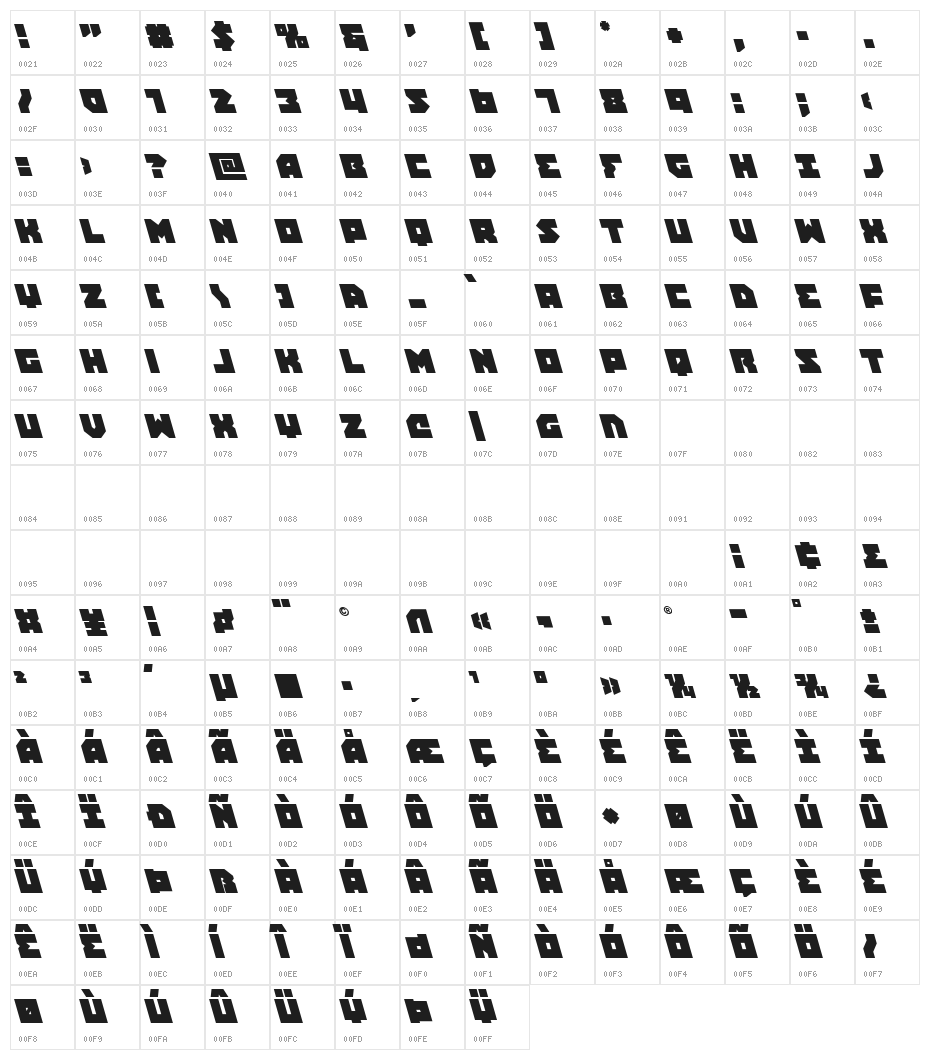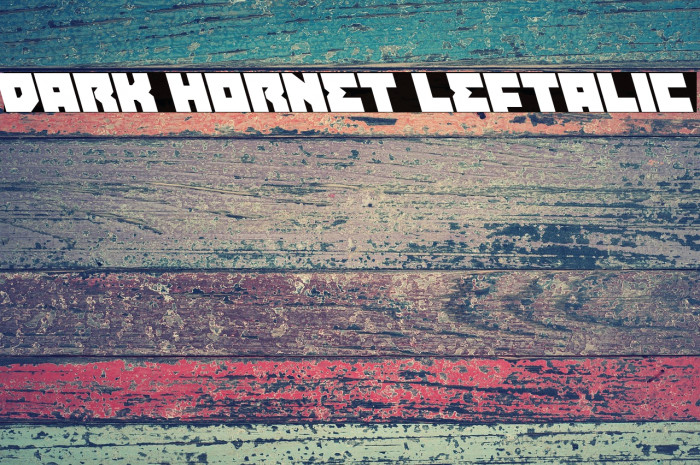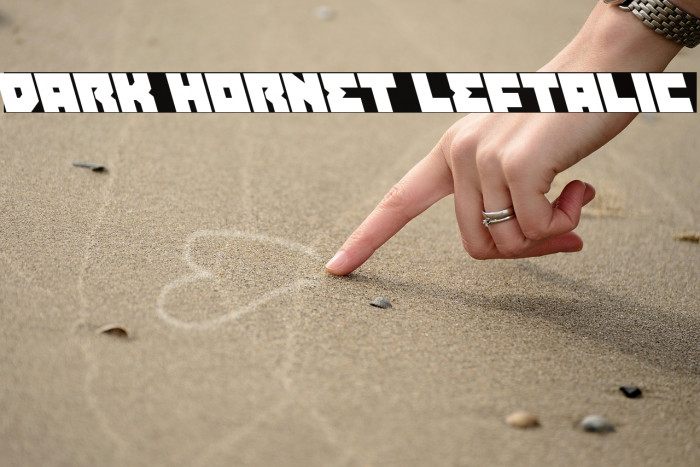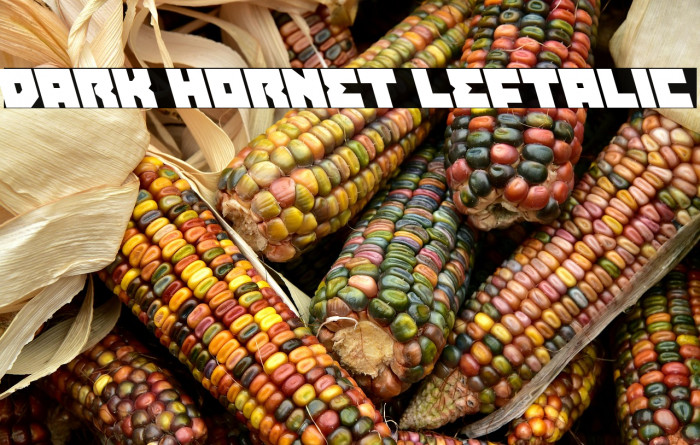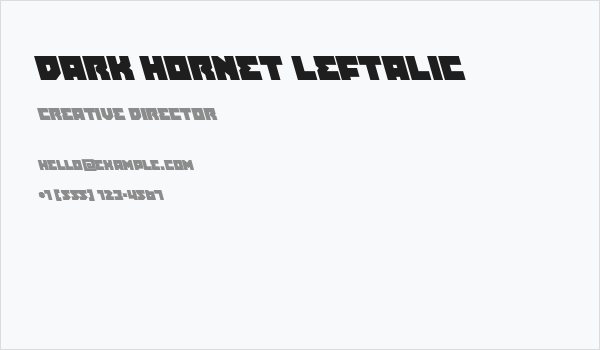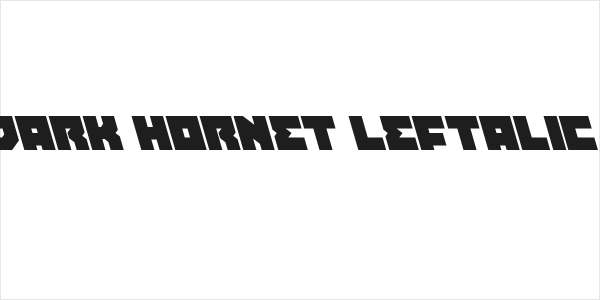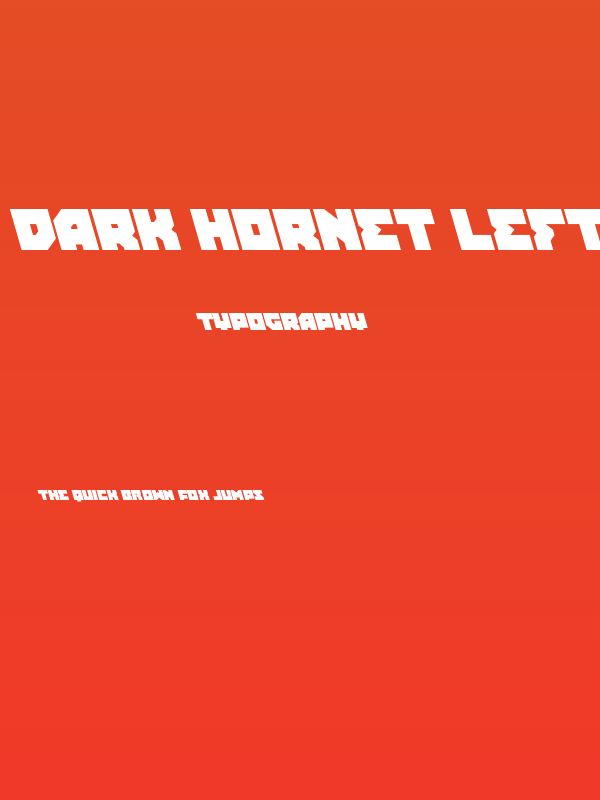
Dark Hornet Leftalic Font
Dark Hornet Leftalic Description
This font features a bold, angular design with a strong geometric influence. The characters are heavily stylized with sharp edges and a distinct slant to the left, giving it a dynamic and aggressive appearance. The uppercase and lowercase letters maintain a consistent style, with the lowercase slightly smaller but equally bold. Numbers and special characters follow the same design principles, ensuring uniformity across all glyphs. The font's thick strokes and lack of curves emphasize its modern and futuristic aesthetic, making it ideal for impactful visual statements.
| Proposed Projects | Ideal for video game titles, sci-fi movie posters, tech branding, and edgy graphic designs. |